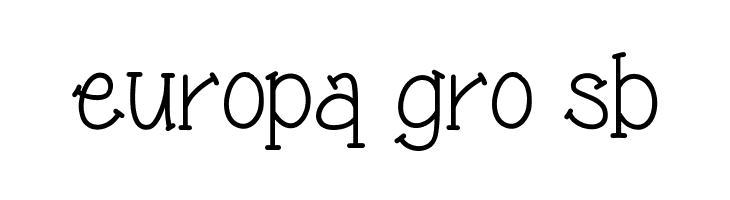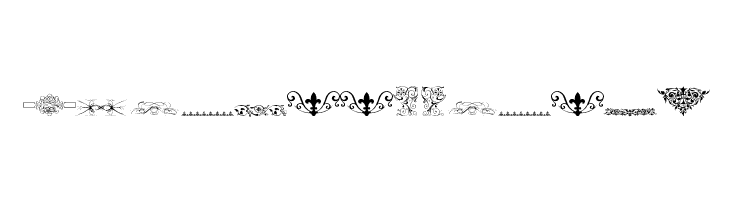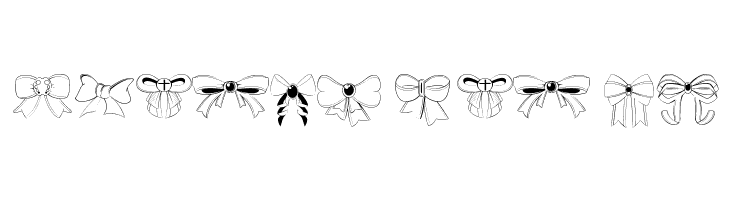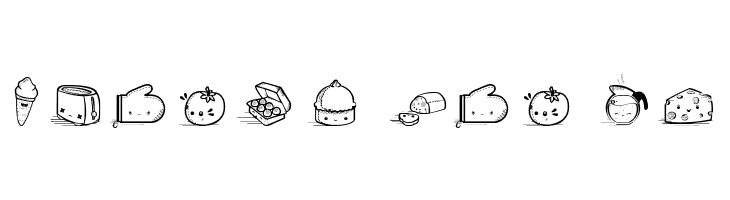
( Fonts by www.kimberlygeswein.com - Kimberly Geswein )
A versatile set of decorative frames and arrows with playful and intricate designs.
( Fonts by Vanessa Bays - bythebutterfly.com )
A whimsical, hand-drawn font with playful, nostalgic charm.
( Fonts by Maelle.K - Thomas Boucherie )
A decorative dingbat font composed of assorted hand-drawn bows.
( Fonts by Maelle.K - Thomas Boucherie )
Hand-drawn kawaii food and kitchen icon dingbat font.
( Fonts by Maelle.K - Thomas Boucherie )
Hand-drawn dingbat font with toy car-themed illustrations.
( Fonts by Maelle.K - Thomas Boucherie )
A playful dingbat font with matryoshka dolls and floral ornaments.
A sci-fi themed dingbat font with character icons and silhouettes.